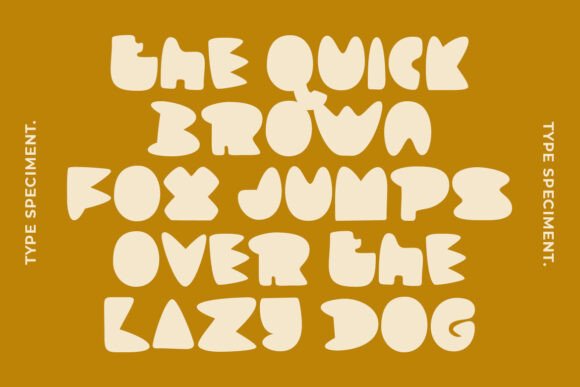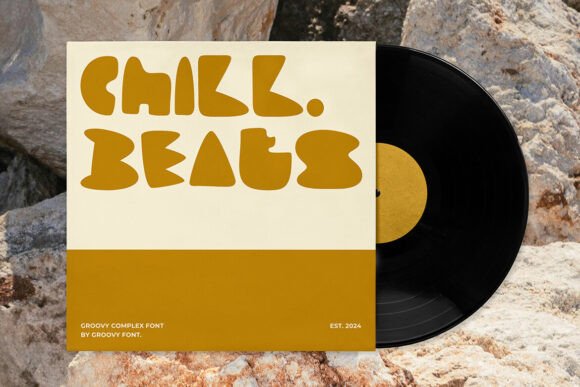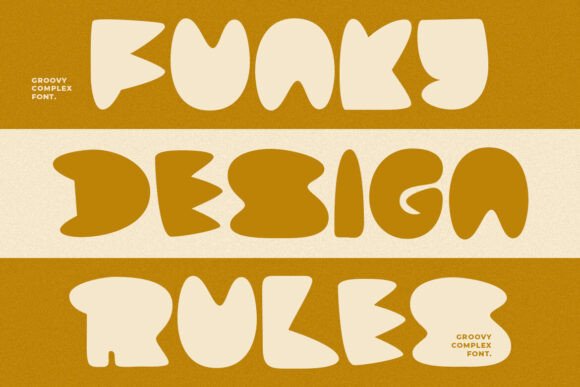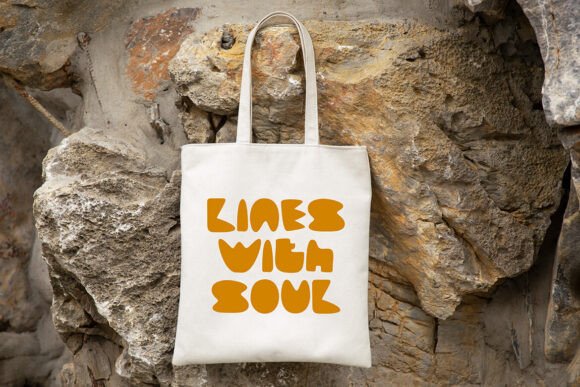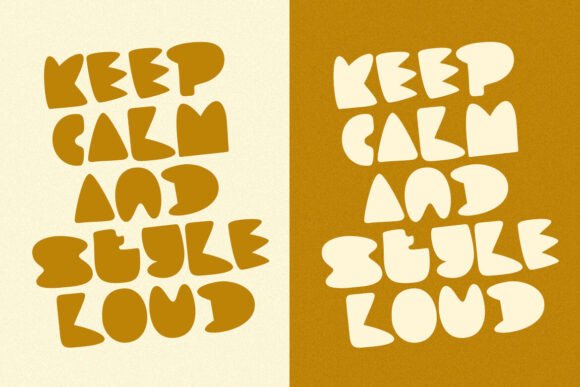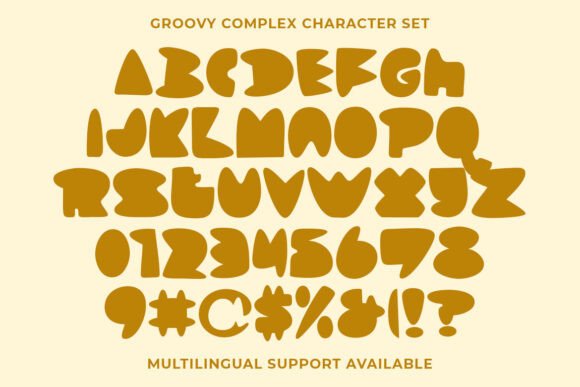
Introduction to Groovy Complex Font
Have you ever stared at a blank canvas, desperately seeking the perfect font to bring your creative vision to life? The struggle is real, but what if I told you that the solution lies in a unique and captivating font that’s about to take your designs to the next level? Enter the Groovy Complex Font, a hand-drawn display font that adds a touch of whimsy and personality to any project.
As a designer, you’re always on the lookout for high-quality design resources that can elevate your work and make it stand out. The Groovy Complex Font is perfect for creative projects where you want to add a handmade or artistic feel. Its distinctive style is both eye-catching and highly legible, making it an ideal choice for any design endeavor.
Key Features of Groovy Complex Font
- Unique, hand-drawn design with a touch of modern flair, perfect for creative projects.
- High-quality design resource with a transparent background, ideal for use in graphic design, digital art, and other creative endeavors.
- Comes in a single, bold weight, making it easy to use in a variety of design contexts.
- Designed to be highly legible, even at small sizes, ensuring that your message is conveyed clearly and effectively.
- Resolution-independent, allowing for crisp and clear rendering on a wide range of devices and screen resolutions.
Honest Review: Groovy Complex Font
As a designer, I’m always on the lookout for high-quality design resources to enhance my creative projects. The Groovy Complex Font caught my attention, and I was excited to try it out.
Here are some aspects where the Groovy Complex Font truly shines:
- ✨ Unique and intricate designs that add a touch of personality to any project.
- ✨ High-quality glyphs that render well on various backgrounds, including a transparent background.
- ✨ Great for designing digital products, logos, and other creative projects where a funky, complex font is needed.
- ⚠️ The font may be too busy or overwhelming for some projects, so use it judiciously.
- ⚠️ Limited language support, which might be a concern for designers working with clients from diverse linguistic backgrounds.
Overall, I’d say the Groovy Complex Font is a great addition to any designer’s collection. While it has some limitations, its unique design and high-quality rendering make it a valuable resource for creative projects.
How to Use Groovy Complex Font
To get the most out of the Groovy Complex Font, use it in combination with other design elements to create a visually appealing design. Experiment with different font sizes, colors, and styles to achieve a unique look. Additionally, use the font on a transparent background to create a modern and sleek design effect.
The Groovy Complex Font is ideal for creative projects, such as graphic design, digital art, and typography. It’s also suitable for presentations, documents, and websites that require a high-quality and visually appealing design. This font is perfect for designers who want to add a unique touch to their projects and stand out from the crowd.
Is the Groovy Complex Font suitable for high-resolution printing?
Yes, the Groovy Complex Font is designed to be a high-quality font, making it suitable for high-resolution printing. The font’s design and rendering ensure that it will look great even at large sizes and high resolutions, making it perfect for business cards, brochures, and other printed materials.